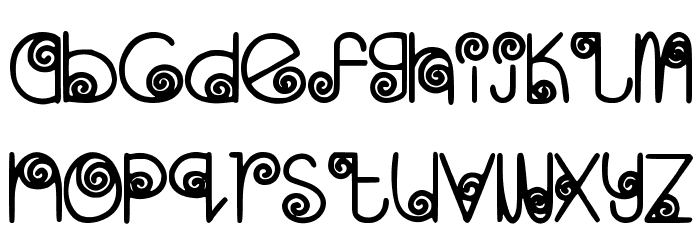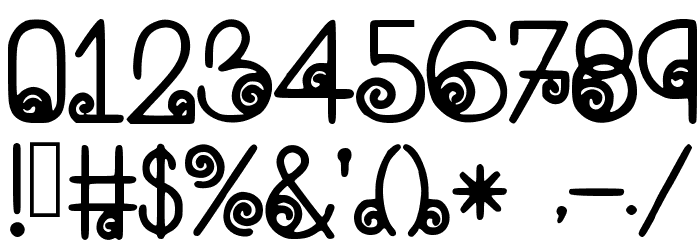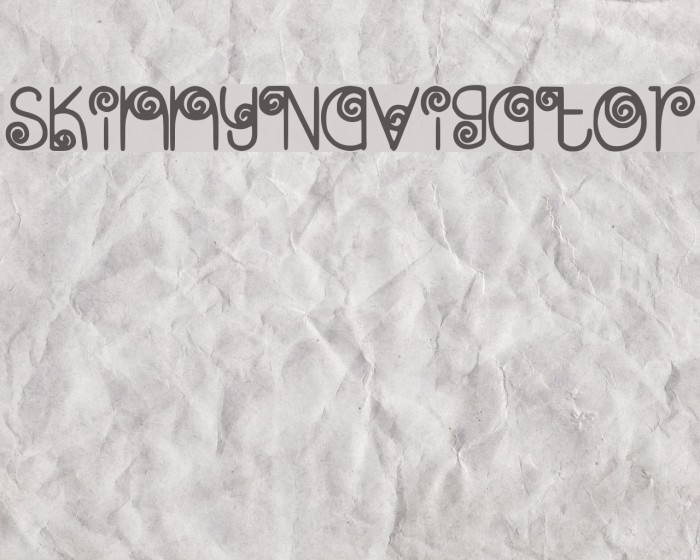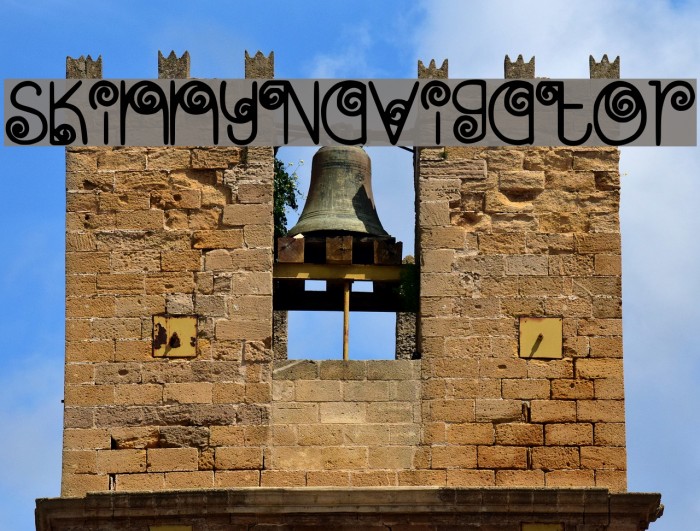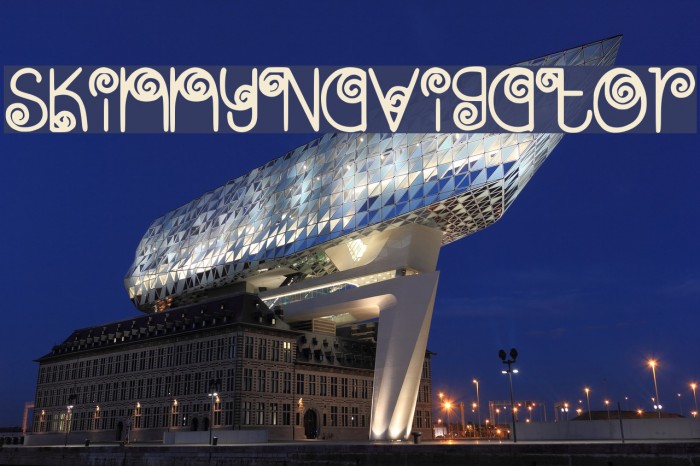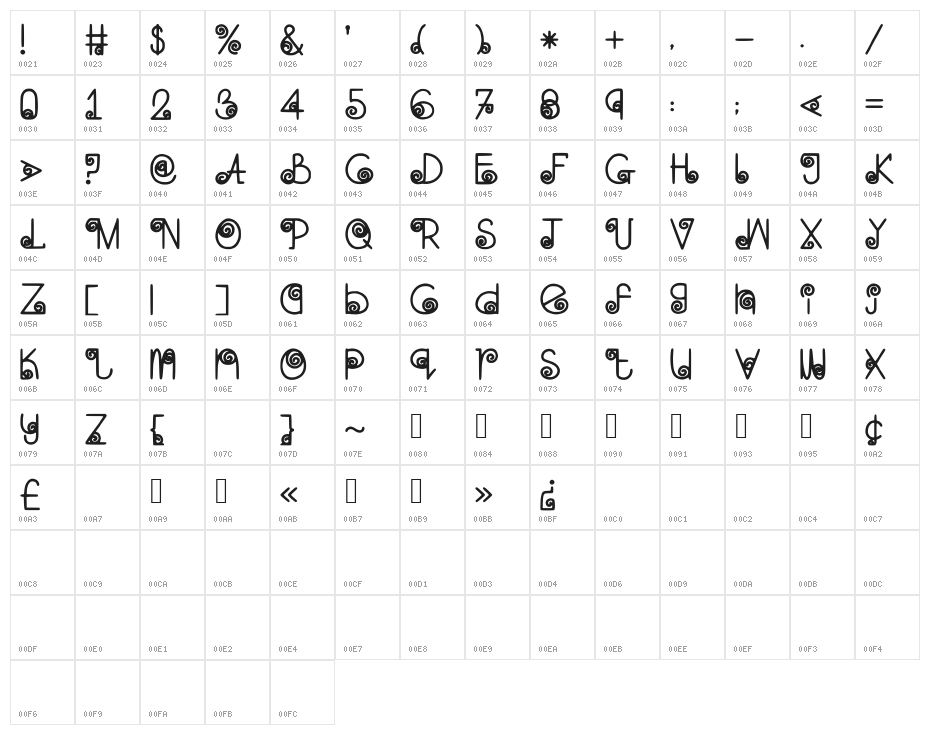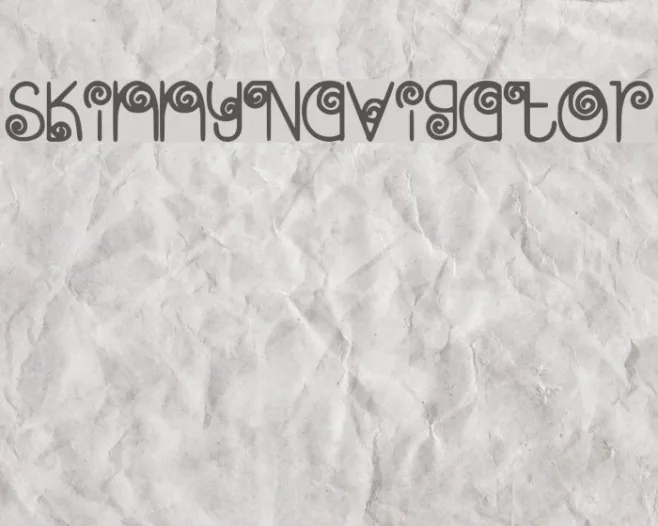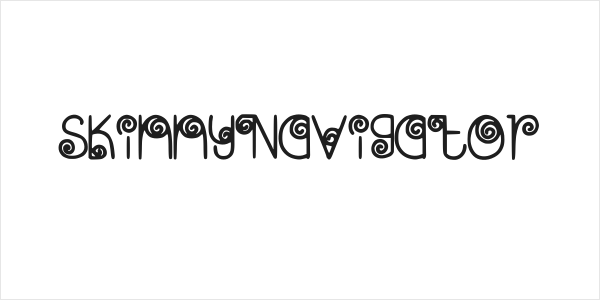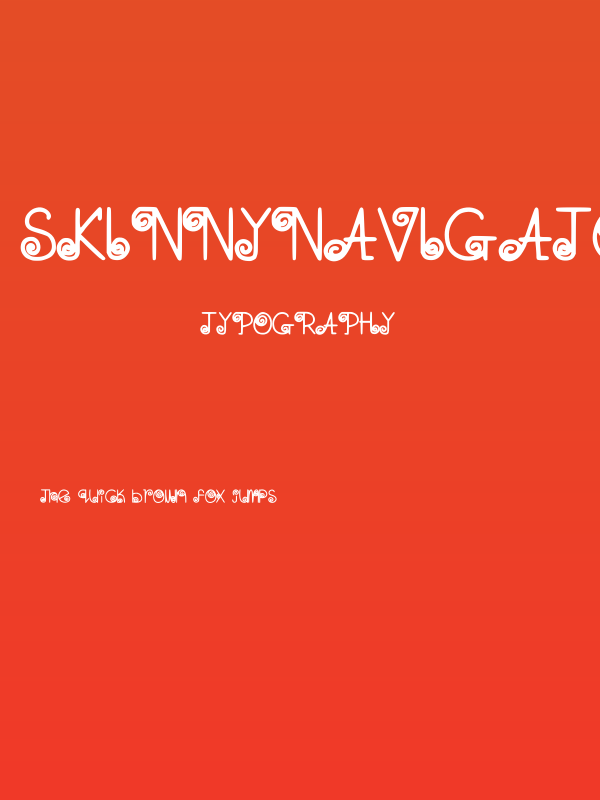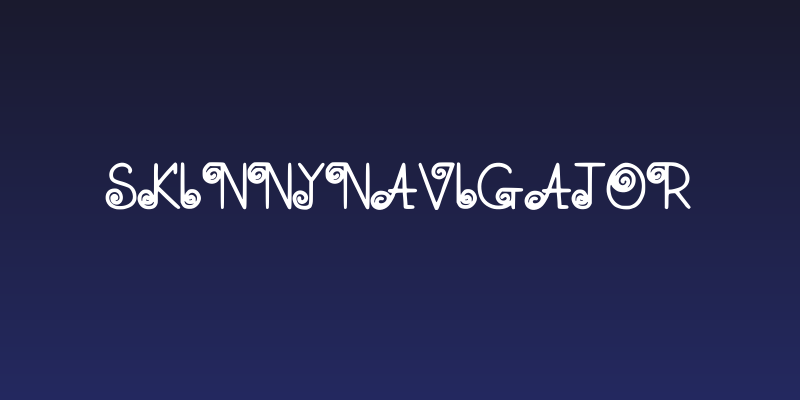
SkinnyNavigator Font
This font features a whimsical and playful design, characterized by its unique spiral embellishments on each character. The letters are bold and rounded, with a consistent thickness throughout, giving it a cartoonish and decorative appearance. The uppercase and lowercase letters maintain a cohesive style, while the numbers and special characters are equally adorned with the distinctive spiral motif. This font's artistic flair makes it stand out, offering a fun and creative option for various design projects.
A whimsical, spiral-embellished decorative font with a bold, playful style.
- Proposed Projects: Ideal for children's books, playful branding, party invitations, and creative posters.